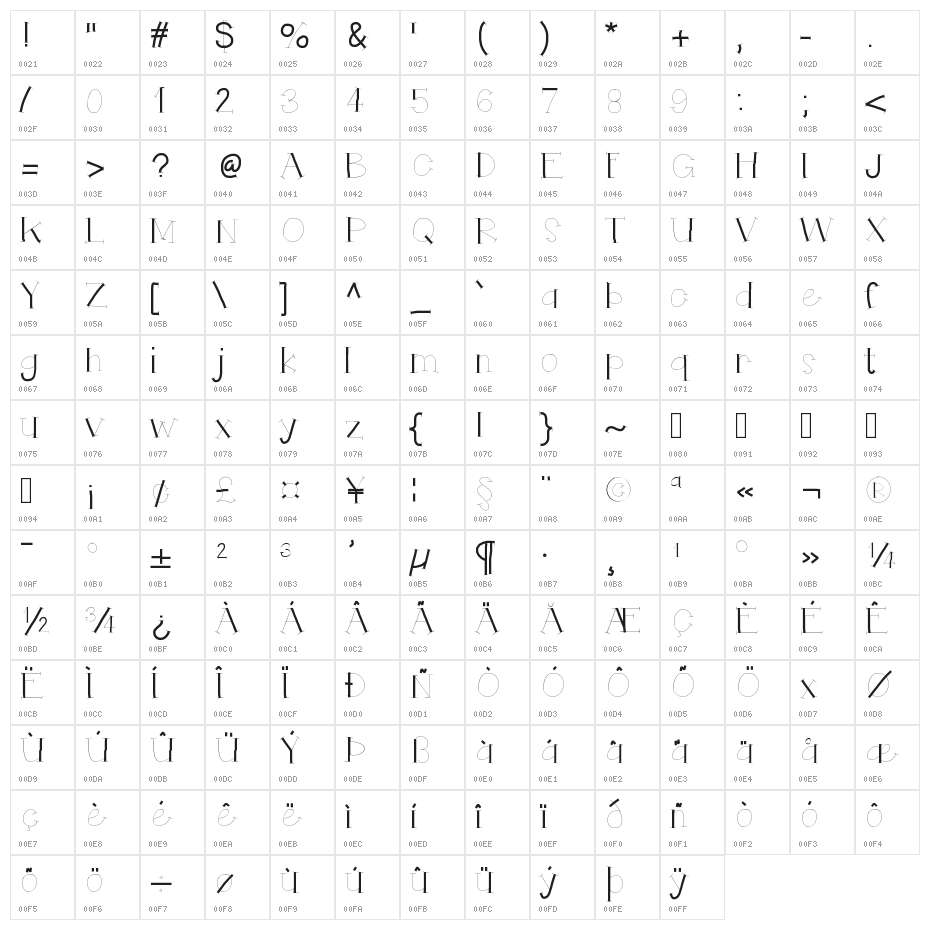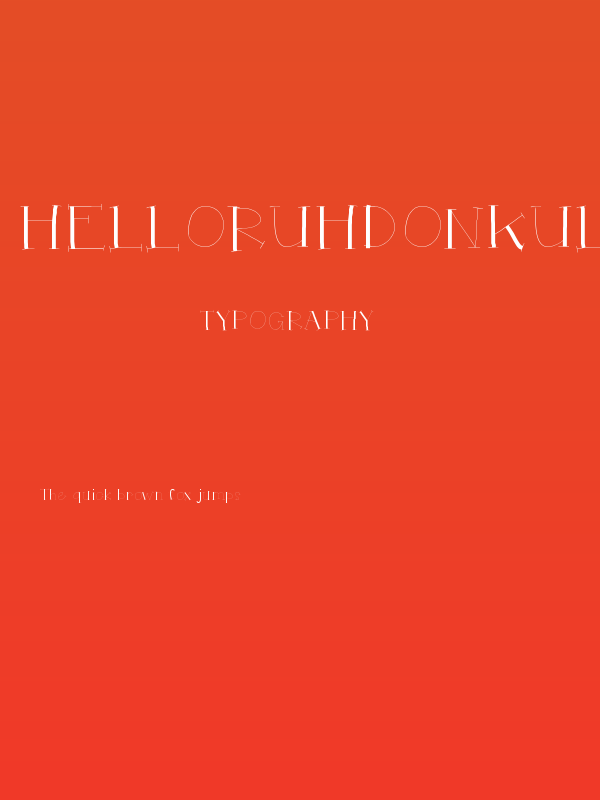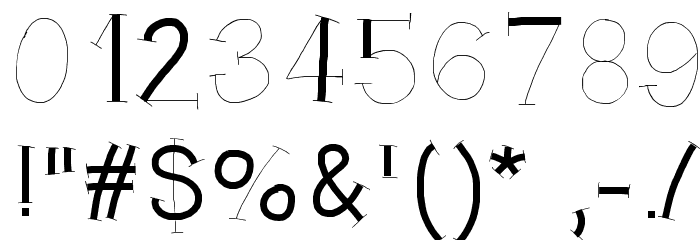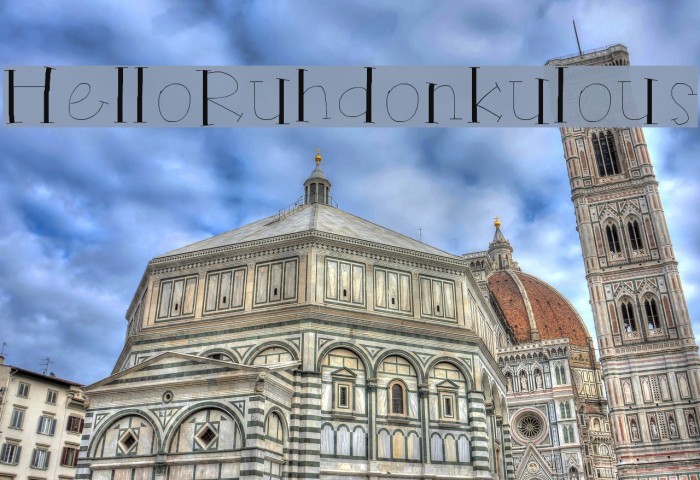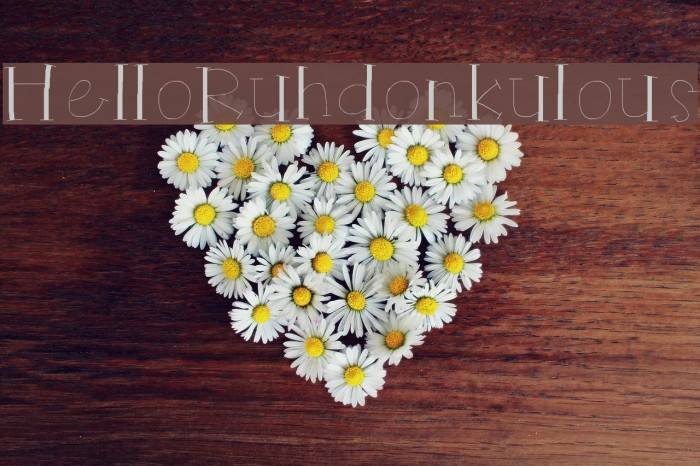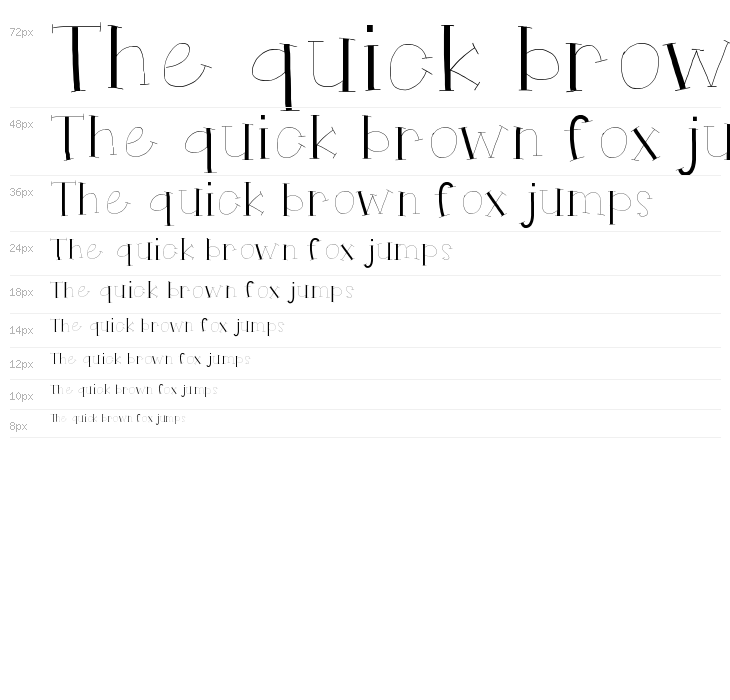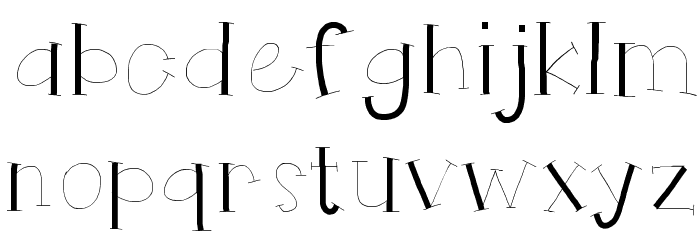
HelloRuhdonkulous Font
HelloRuhdonkulous Description
This font features a unique and playful design with a mix of thick and thin strokes, creating a whimsical and dynamic appearance. The uppercase letters exhibit a bold presence with varying stroke widths, while the lowercase letters maintain a consistent thinness, adding a touch of elegance. The numerals are distinct and easy to read, with a quirky flair that matches the overall style. Special characters are creatively designed, enhancing the font's decorative appeal. This font is perfect for projects that require a fun and artistic touch, making it suitable for creative branding, posters, and invitations.
| Proposed Projects | Ideal for creative branding, posters, invitations, and artistic designs. |